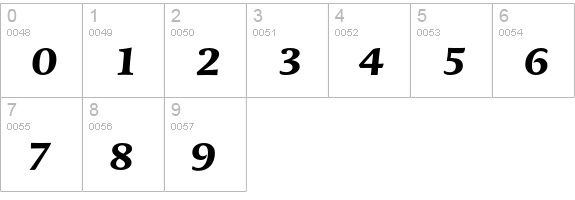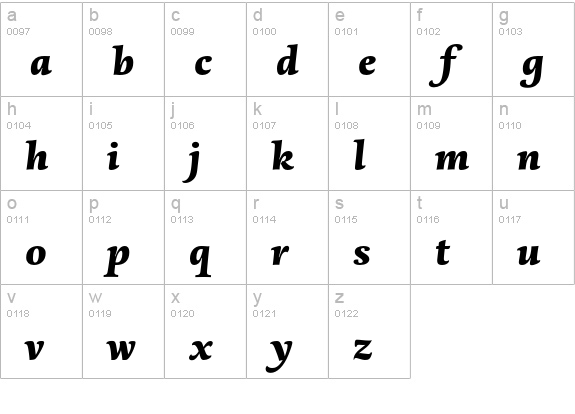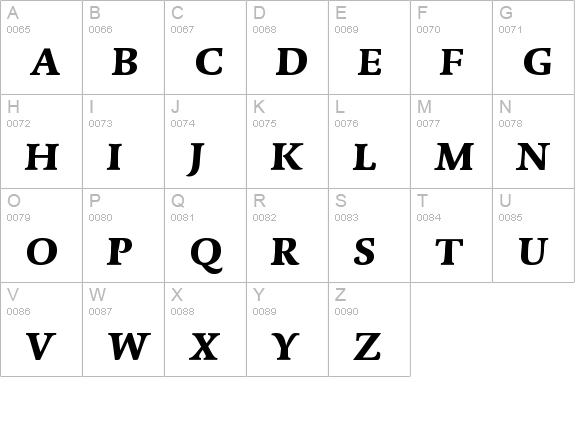
DTLDorianT-BlackItalic Font Details
DTLDorianT-BlackItalic is a stylish and elegant font that exudes sophistication and modernity. Its sleek design, with sharp angles and intricate details, makes it stand out from the crowd. The bold nature of the font adds a touch of drama and flair to any project, making it perfect for branding, titles, and high-impact design work. What sets DTLDorianT-BlackItalic apart is not only its striking appearance but also its versatility. Whether used for print or digital media, this font commands attention and leaves a lasting impression on the audience. Its distinctive italic style adds a touch of finesse and refinement to any text, making it ideal for conveying a sense of luxury and exclusivity. And the best part? DTLDorianT-BlackItalic is available for free download at FontsMarket.com! So you can elevate your design projects without breaking the bank. Don't miss out on this opportunity to add a touch of sophistication to your work with DTLDorianT-BlackItalic font.